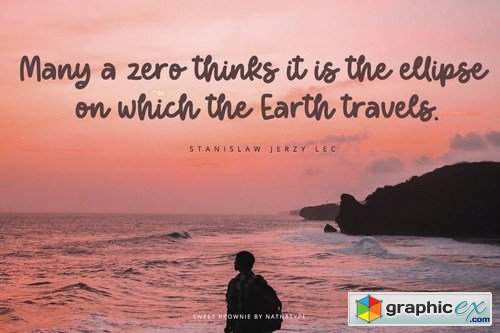
Sweet Brownie
Sweet Brownie is a beautiful handwritten font. It brings an attractive typeface. Made for any professional projects. The font is suitable for any project like logo, t-shirt printing, wedding invitations, and greeting cards to social media quotes, branding, and more! Outstanding in a wide range of contexts.